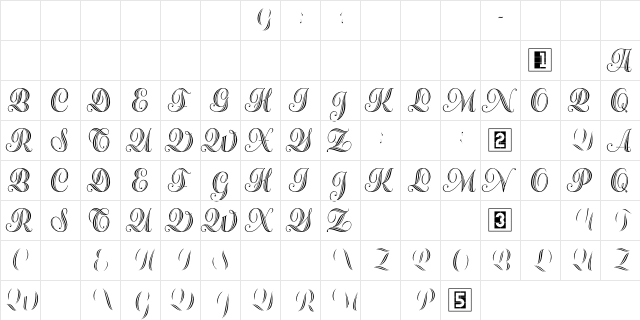
Adana Initials
| Style | Initials |
| Foundry | Andreas Seidel / astype |
| Designer | Wilhelm Berg 1930, Andreas Seidel 2005 |
Design Context for Adana Typeface
Adana is a composed and adaptable typeface that performs quietly and consistently across a wide range of design contexts.